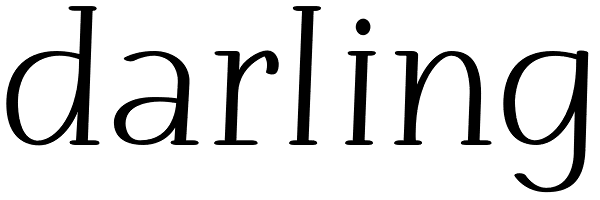
darling
darling is a display font, with medium contrast, designed to be used in the composition of titles, letterings, visual id's and short texts such as illustrated books or magazines for children. it has 738 characters and a lot of opentype features that...